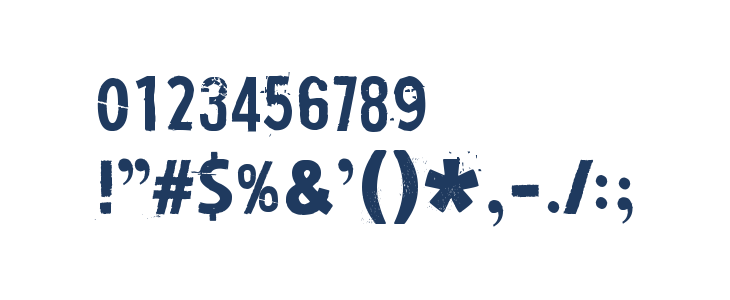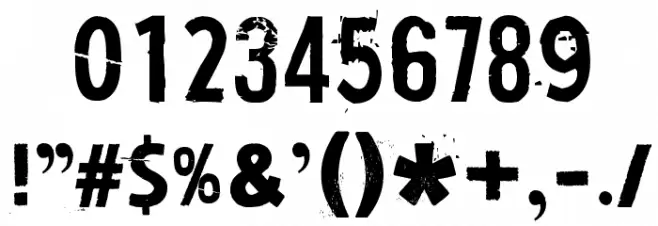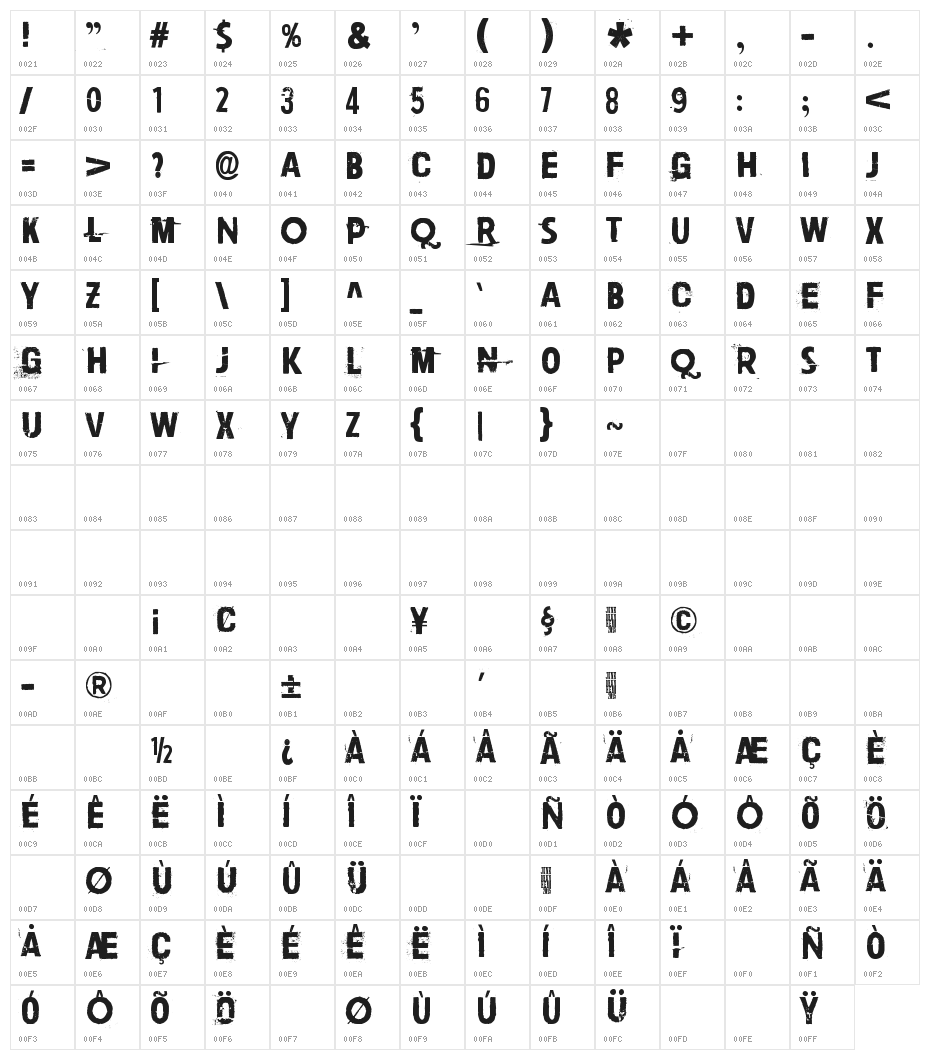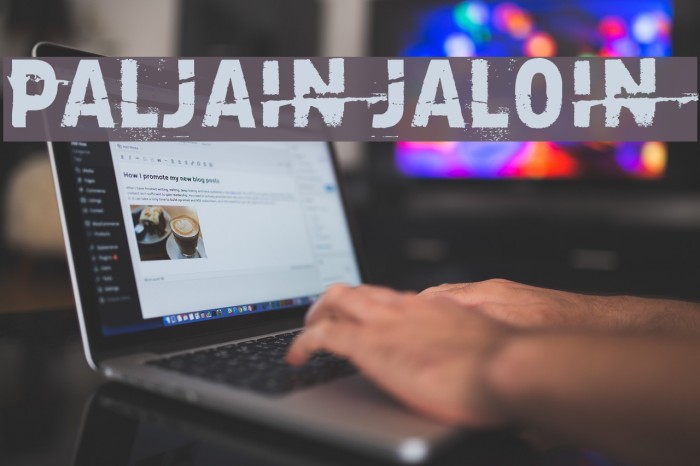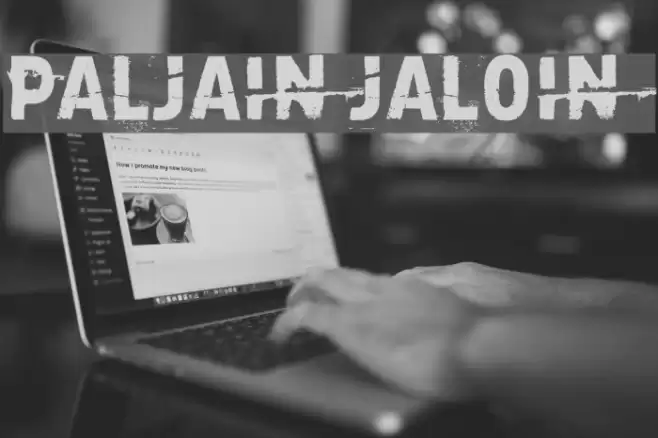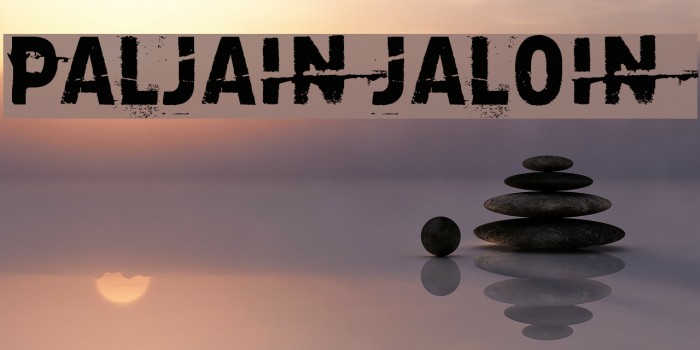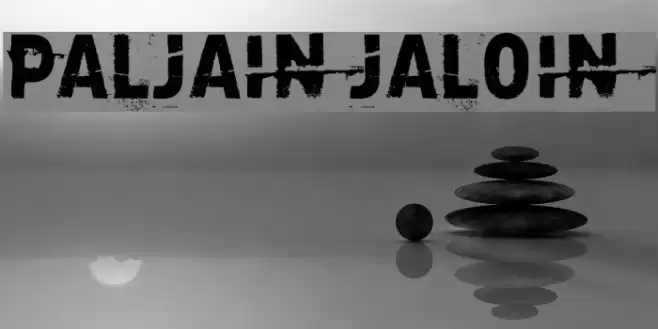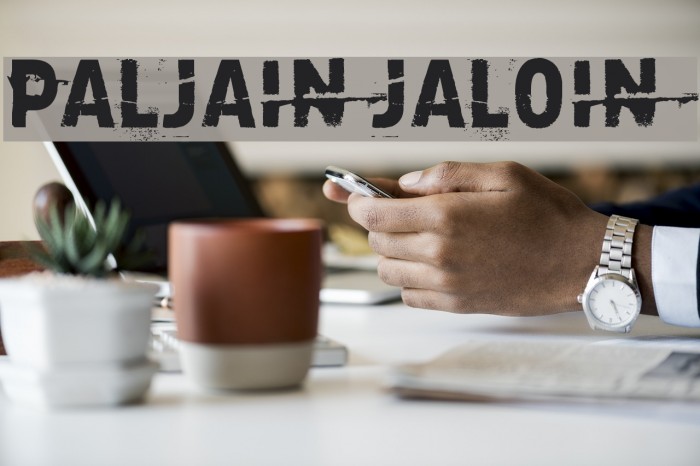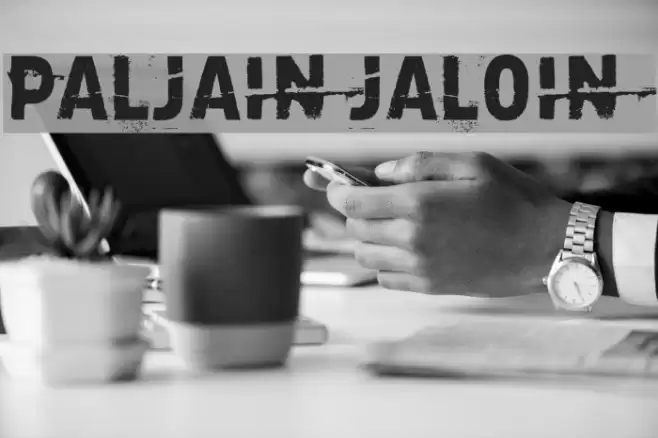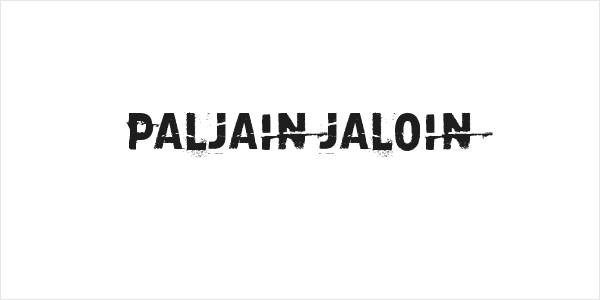
Paljain jaloin Font
Paljain jaloin Description
This font features a distressed and grunge style, characterized by its rough, textured appearance. The letters are bold and uppercase, with a worn-out look that gives them a vintage, industrial feel. The irregular edges and inconsistent ink coverage add to its rugged charm, making it ideal for designs that require a raw, edgy aesthetic. The numbers and special characters follow the same distressed pattern, ensuring a cohesive look across all text elements.
| Overall Style | Vintage, Industrial, Grunge |
| Proposed Projects | Ideal for album covers, posters, urban-themed designs, and branding that requires a gritty, vintage look. |